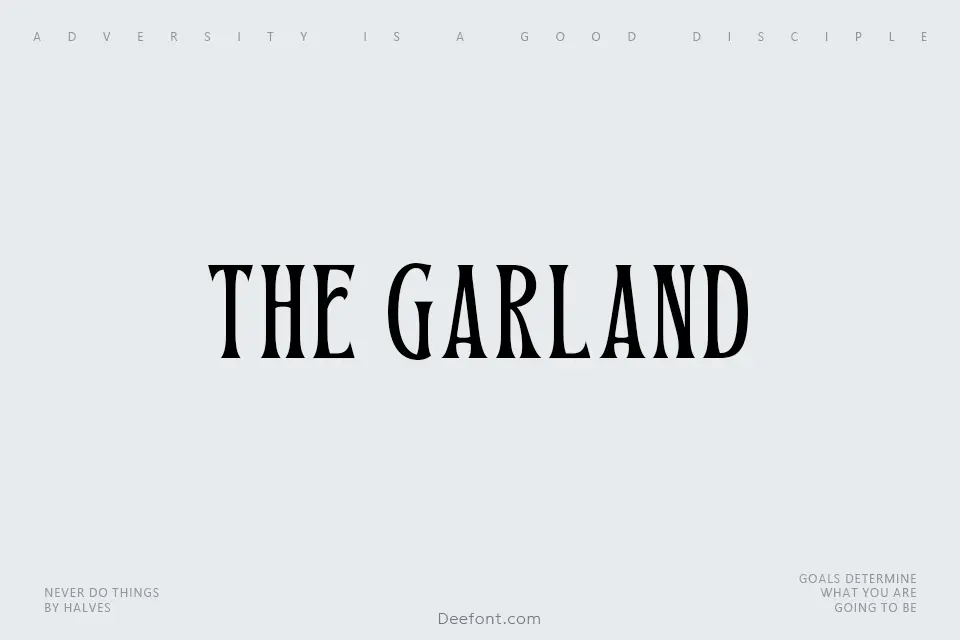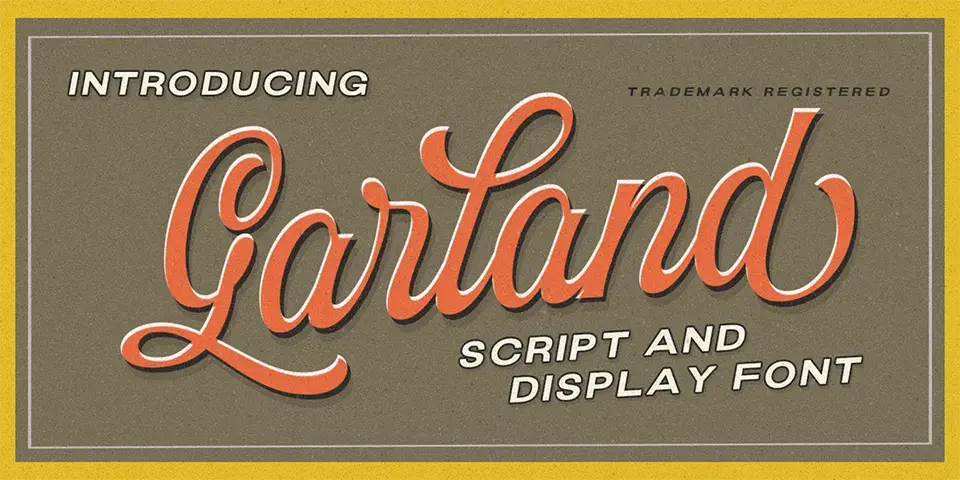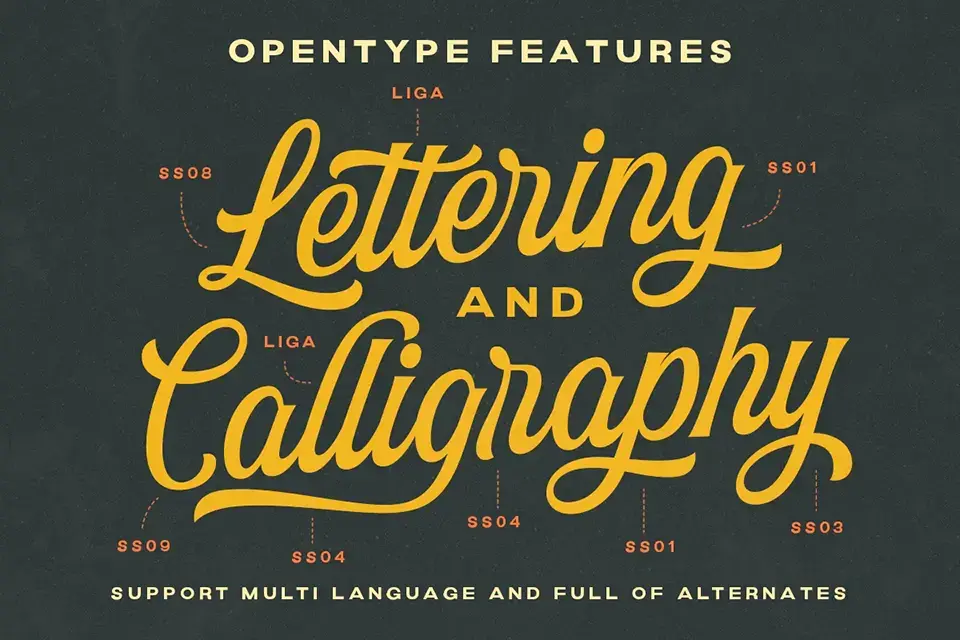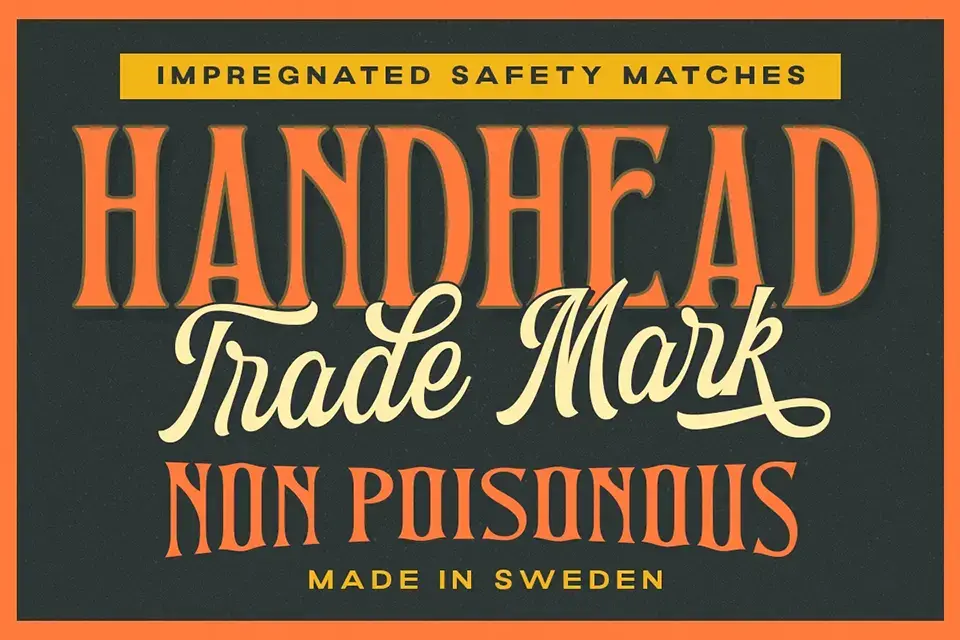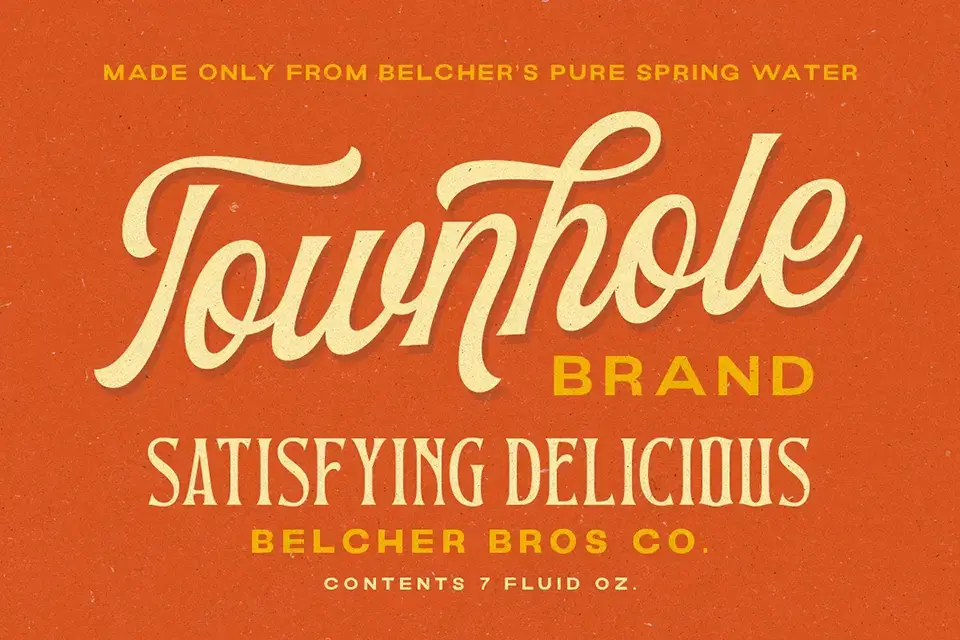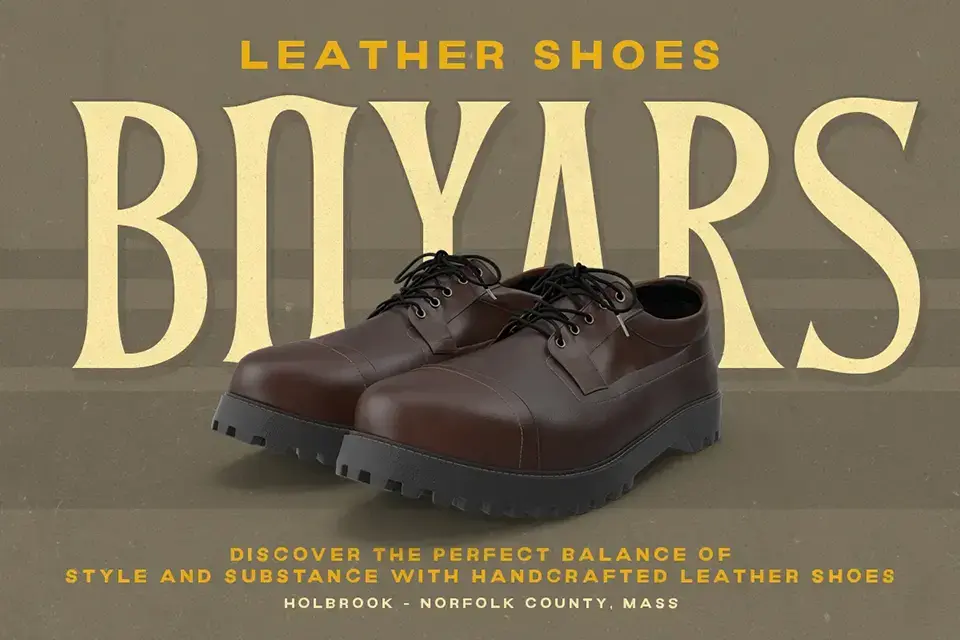
The Garland Script Font
The Garland Script is an elegantly flowing vintage script typeface with hand-drawn charm, featuring organic letterforms and classic old school styling. This ornamental script font excels in creating memorable headline text, decorative titles, and sophisticated branding applications. Its expressive brushwork and vintage character make it ideal for luxury packaging, event invitations, label design, poster creation, logo design, greeting cards, and fashion-forward display materials. The font delivers timeless elegance with authentic handwritten aesthetics, perfect for designers seeking authentic script personality in modern creative projects.